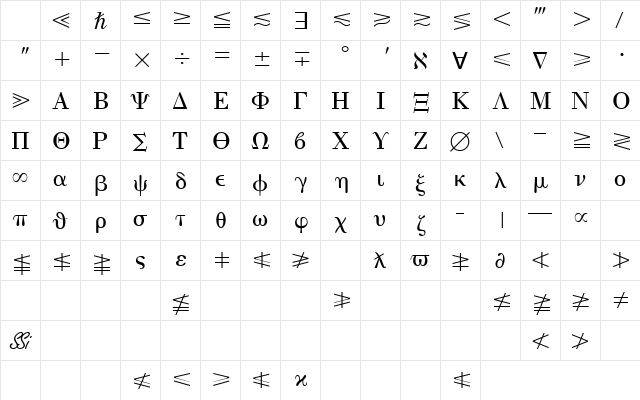
QuantaPiThreeSSK Regular
QuantaPiThreeSSK Family
Design Context for QuantaPiThreeSSK
QuantaPiThreeSSK is a composed and adaptable typeface that performs quietly and consistently across a wide range of design contexts.